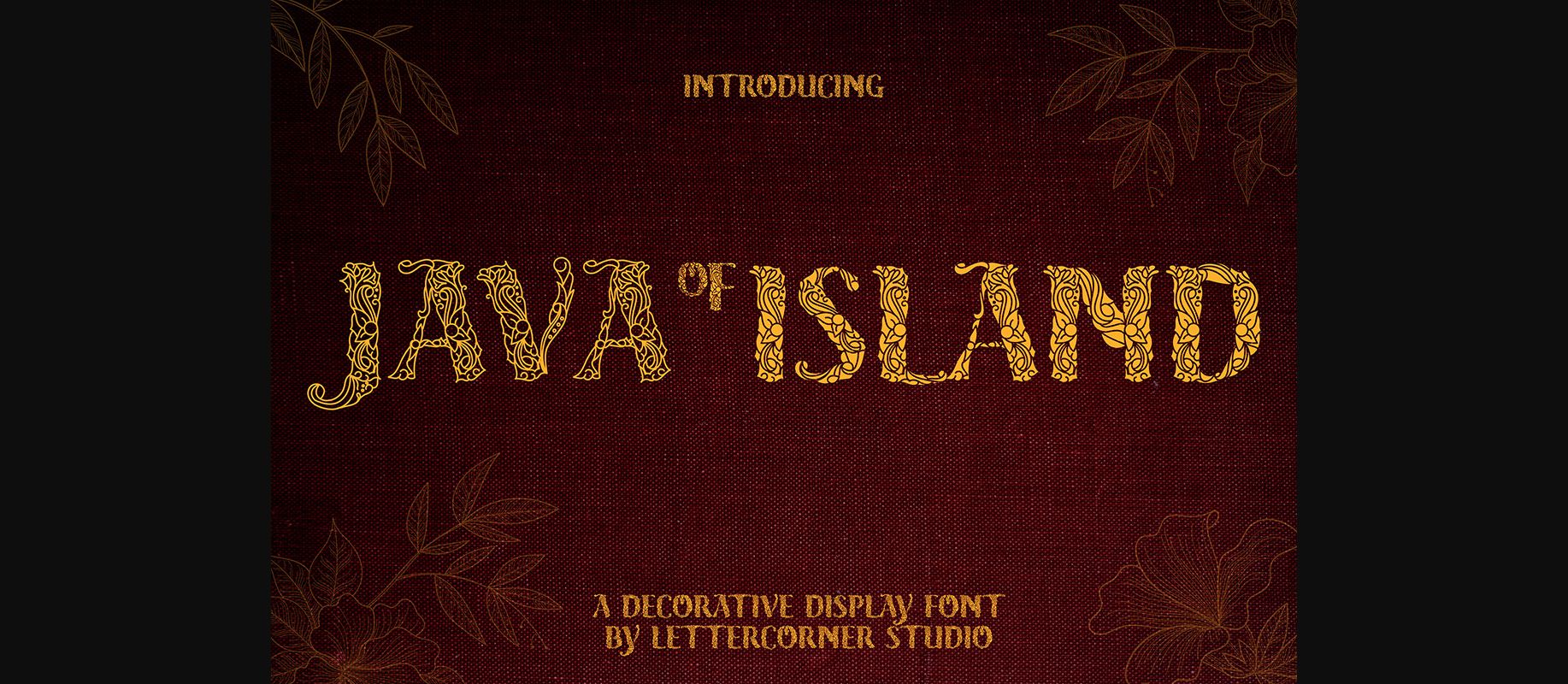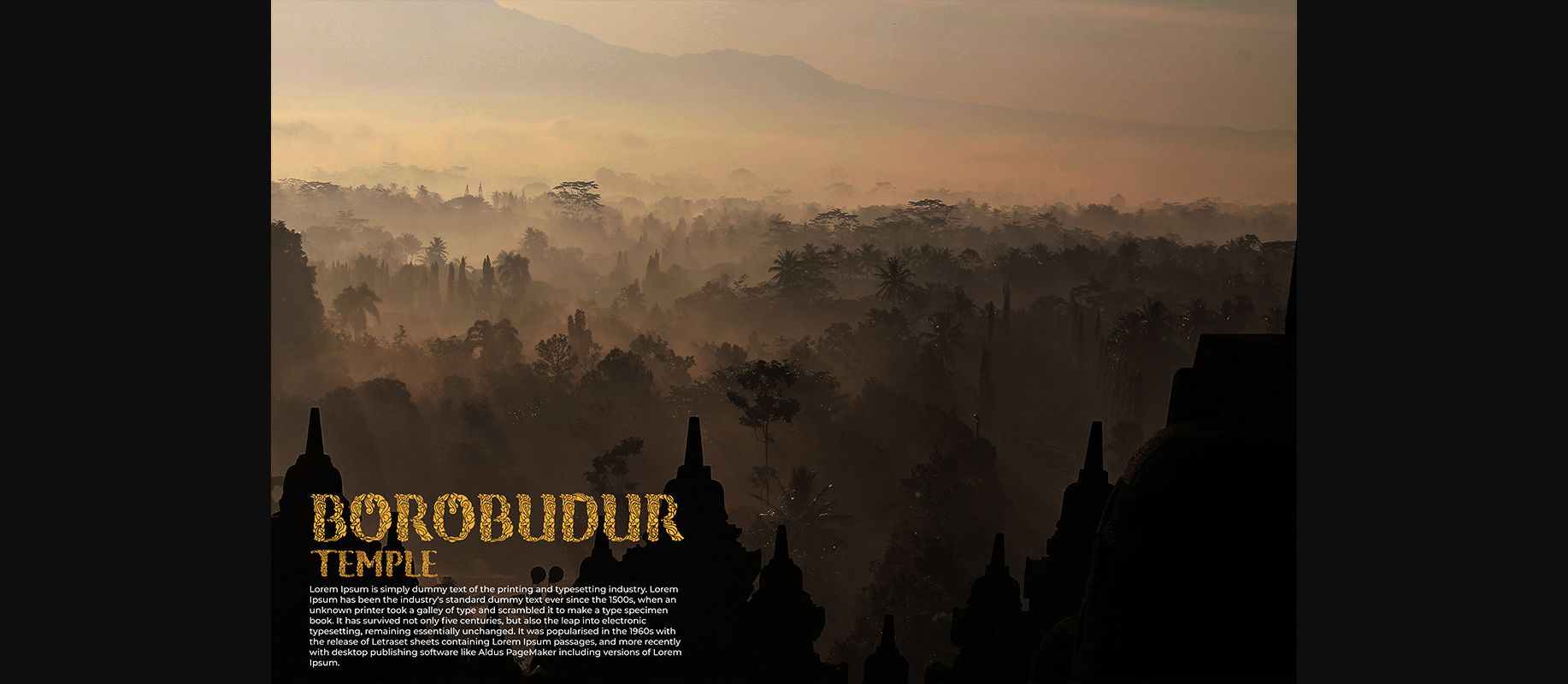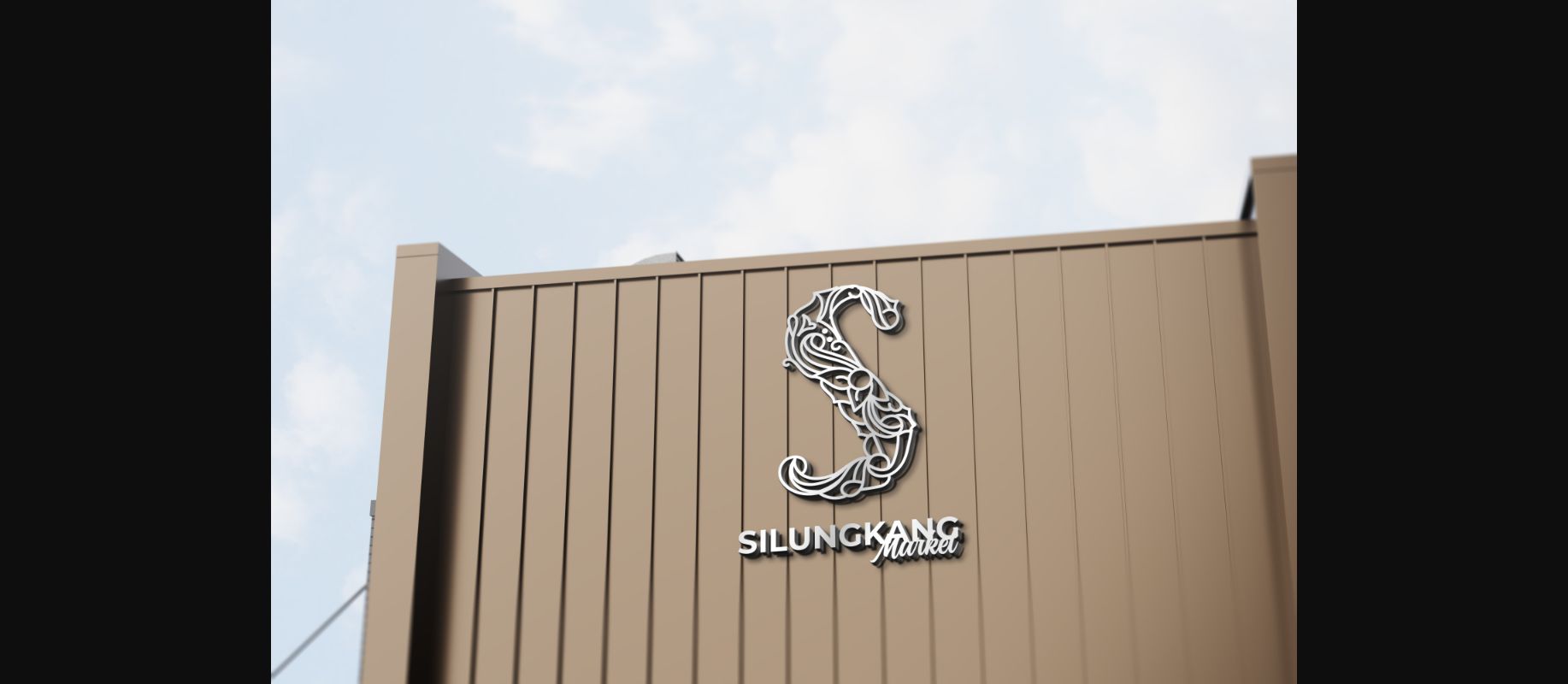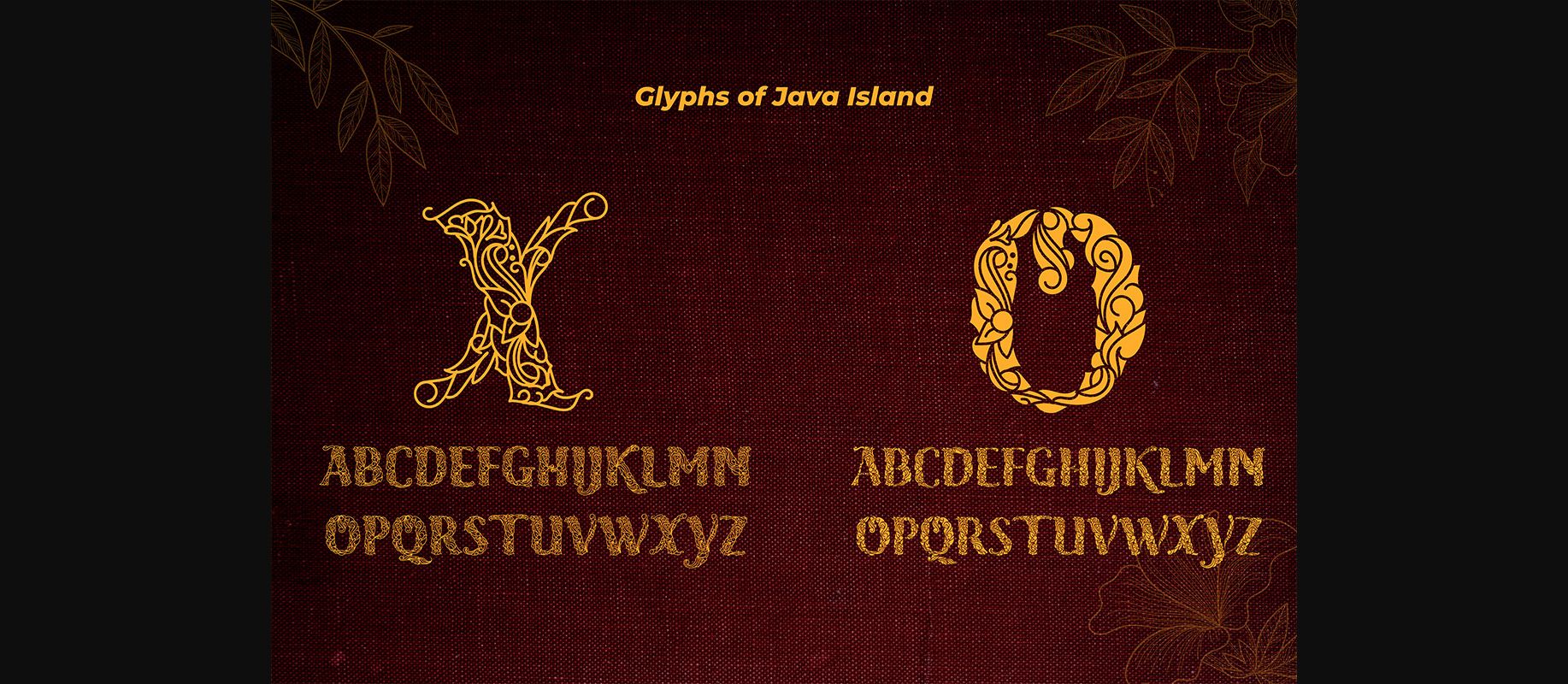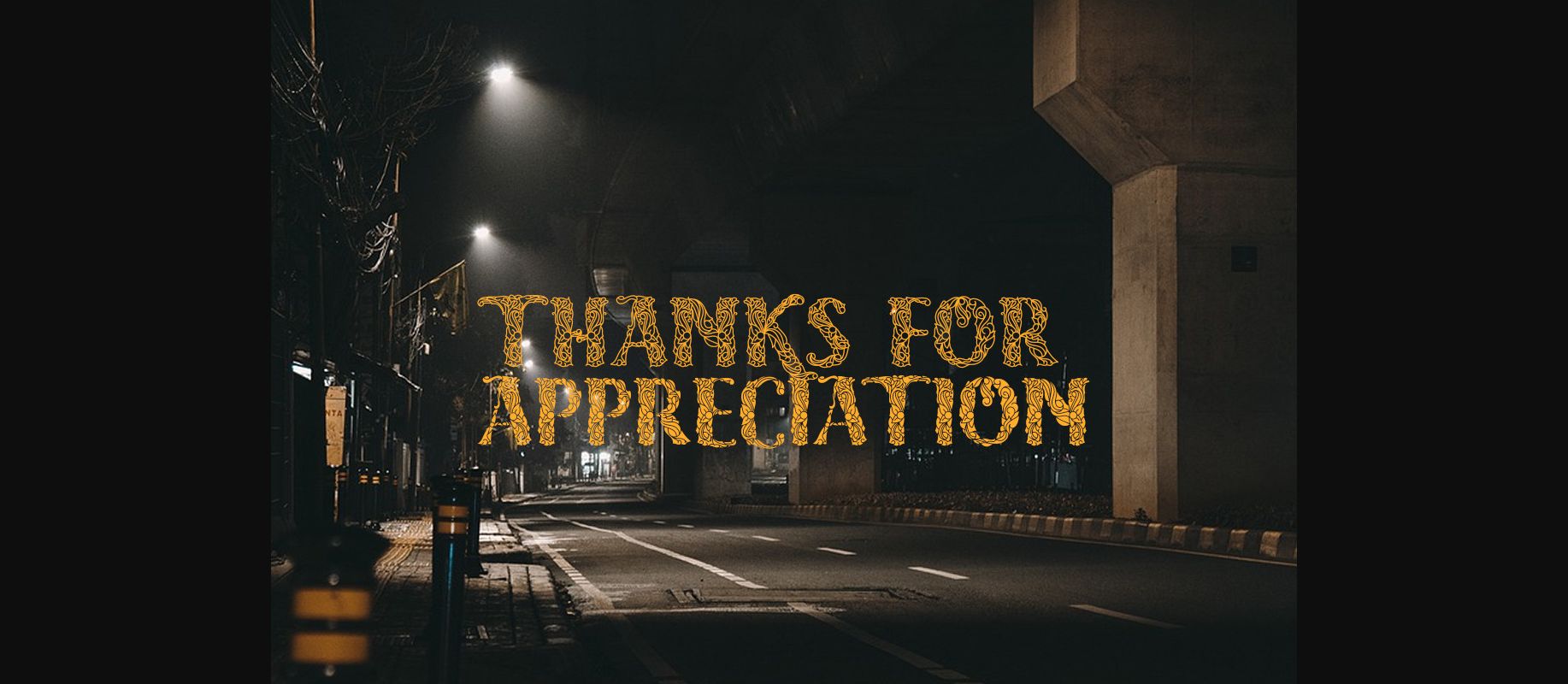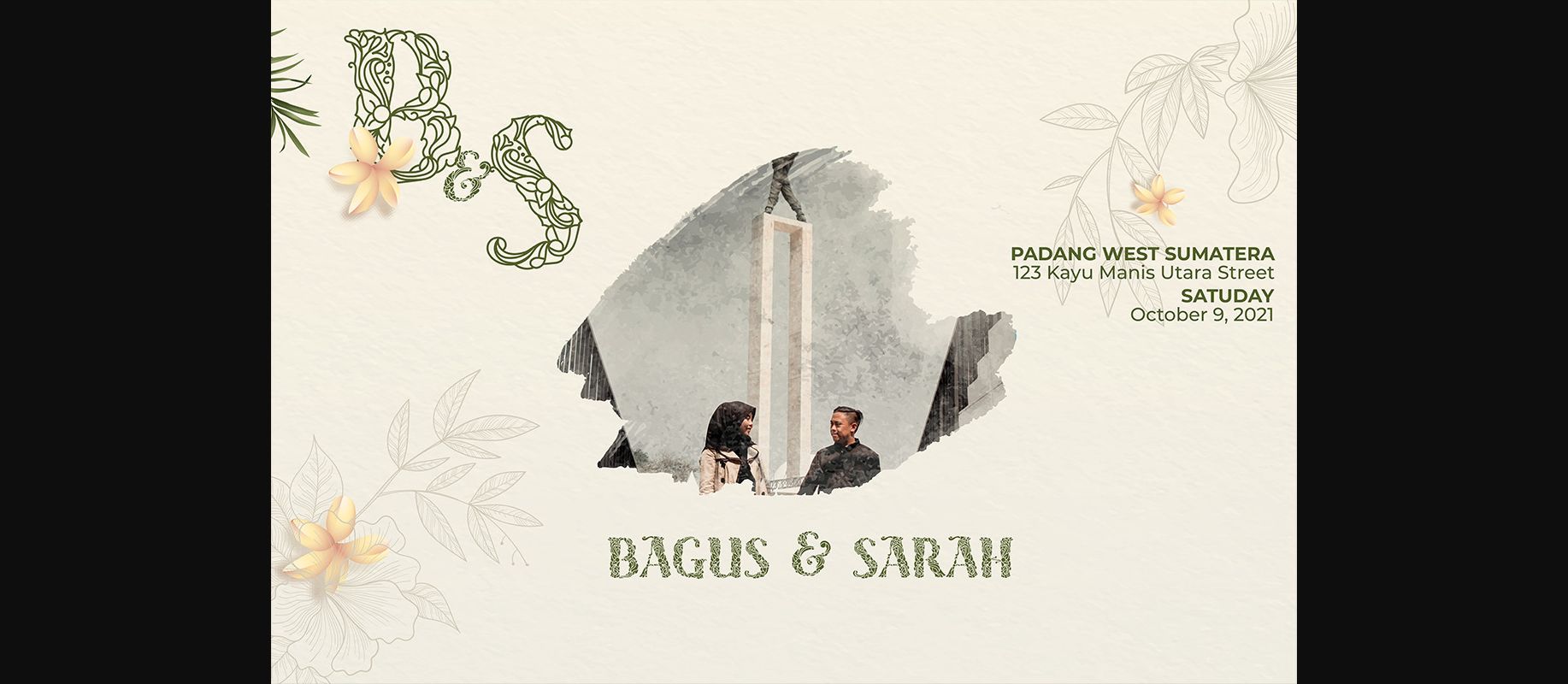
Java Island is a beautiful and highly detailed decorative font. Expertly designed to make your creation look out of this world, this font will look gorgeous on a variety of ideas.